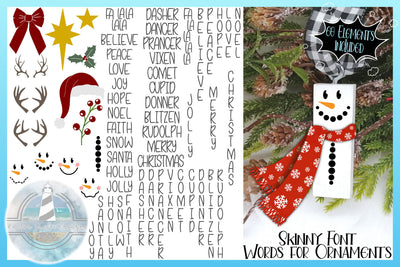
Hand Lettered Skinny Font Words with Christmas Elements SVG | For Jenga Block Ornaments
This listing includes the ‘Hand Lettered Skinny Font Words with Christmas Elements SVG' by Harbor Grace Designs.
~ Fluffy Fleece font in .ttf format (installable) for creating your own words!
These are perfect for creating personalized tree ornaments with Jenga blocks or glitter baubles!!